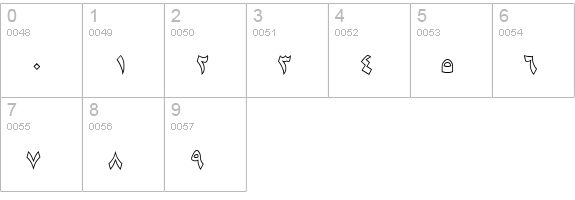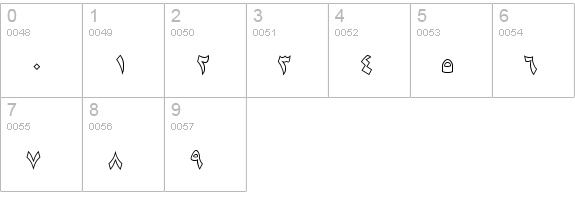
B Rose Font Details
B Rose font is a beautiful and elegant typeface that exudes sophistication and style. With its delicate strokes and graceful curves, this font is perfect for adding a touch of class to any design project. Whether you're creating wedding invitations, branding materials, or social media graphics, B Rose font will elevate your work to the next level. The best part? B Rose font is completely free to download at FontsMarket.com. Simply visit the website and start using this stunning font in your projects today. Don't miss out on this amazing opportunity to enhance your designs with the timeless charm of B Rose font.